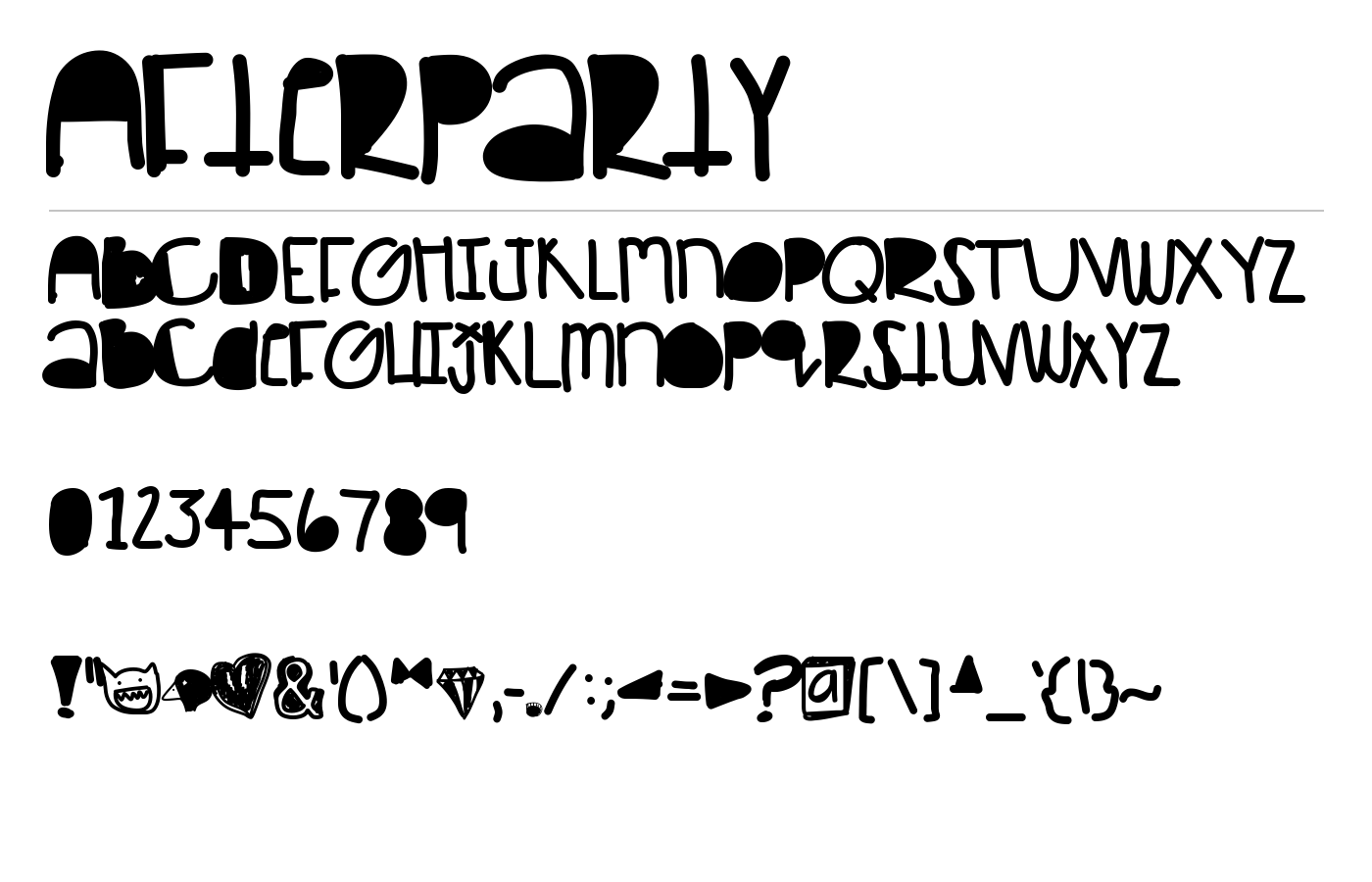
Afterparty is a lively and playful handwritten font with a quirky and irregular style, featuring bold, uneven strokes and whimsical character shapes that give it a casual, fun vibe. Its unique personality makes it perfect for creative projects, party invitations, and youth-focused branding where a sense of spontaneity and cheerfulness is desired. This font works best in display settings, adding an energetic, informal touch to any design.
Afterparty Font
About Afterparty Font